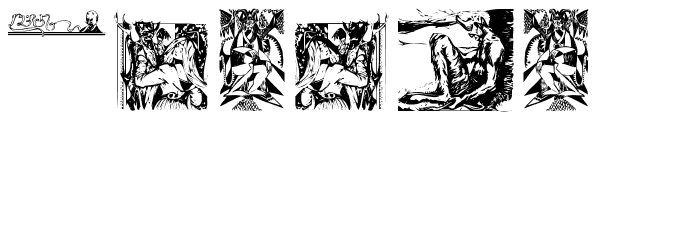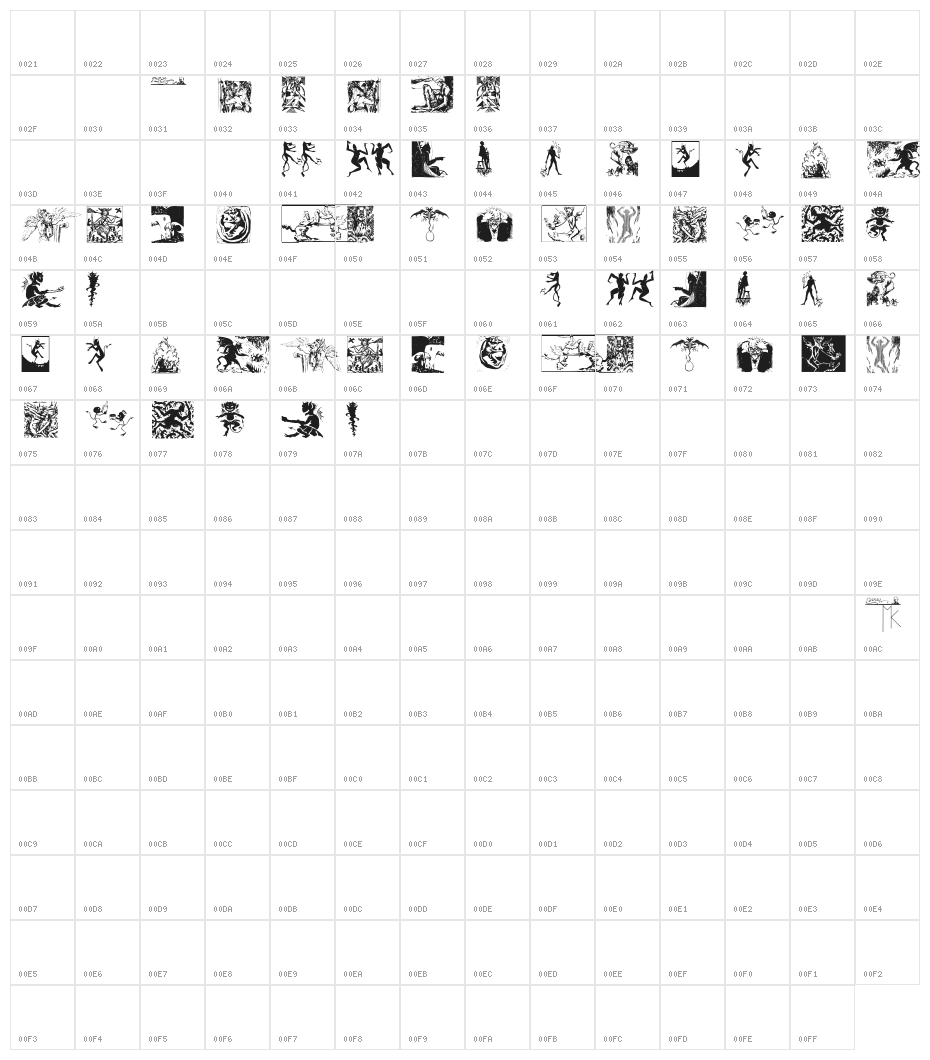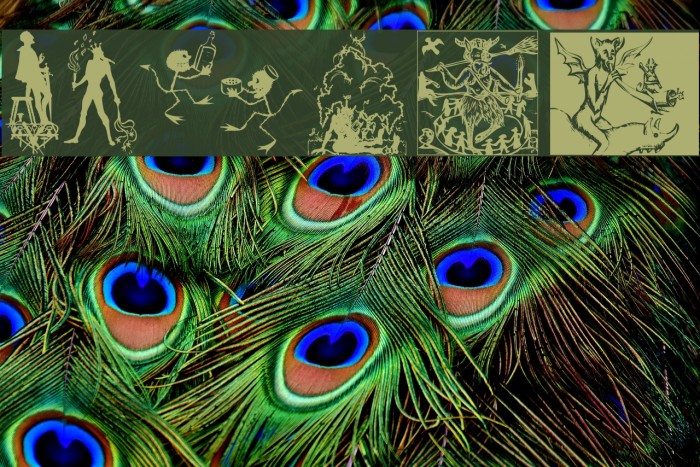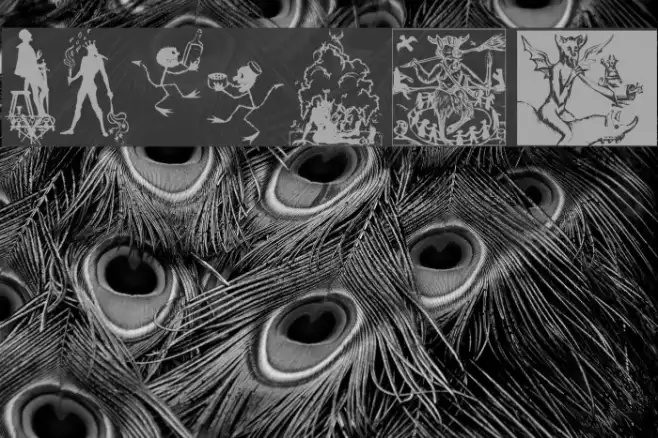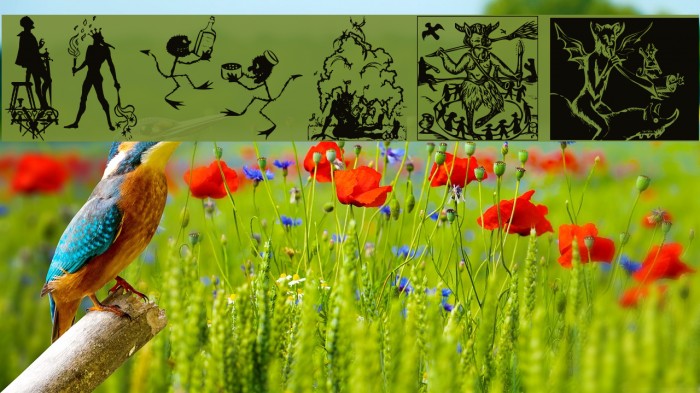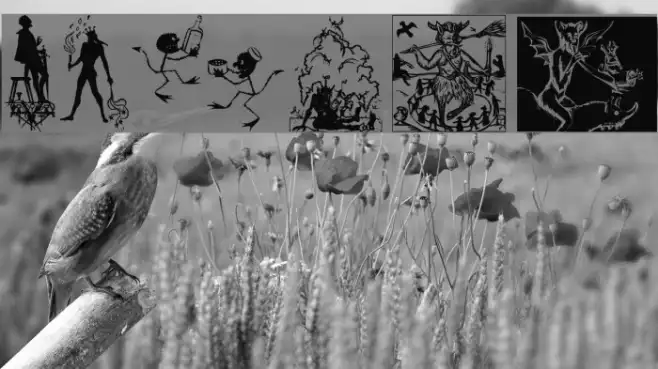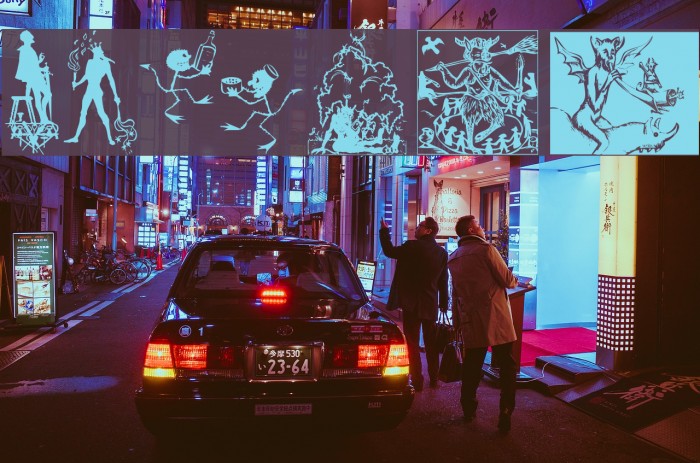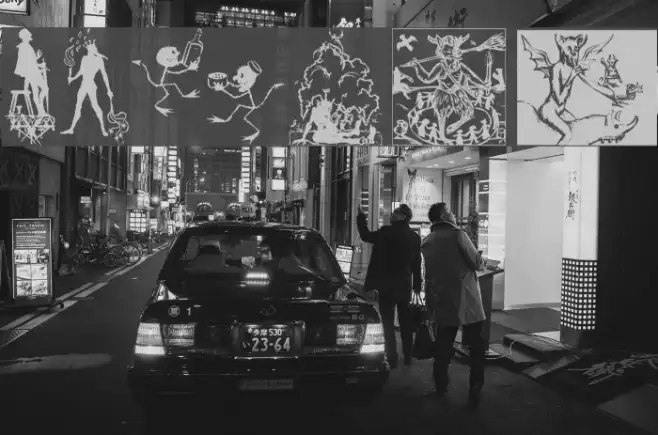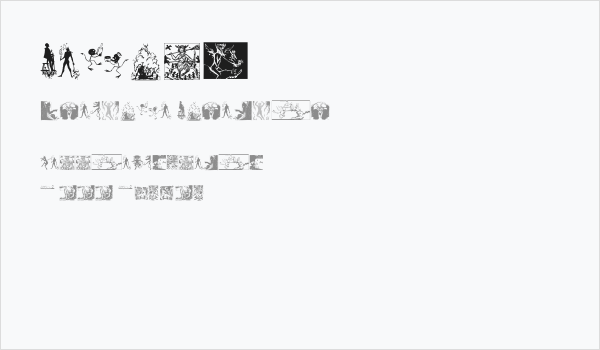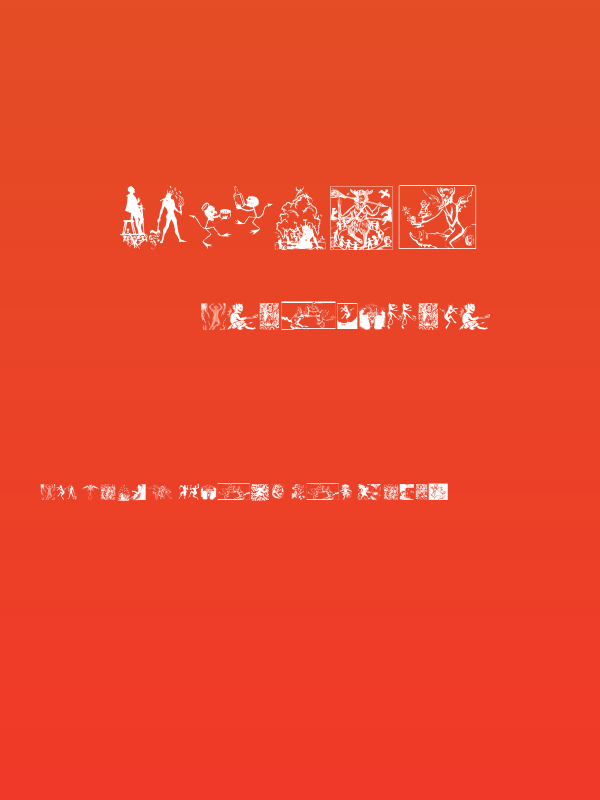
Devils Font
Devils Description
Highly decorative and illustrative font featuring intricate black-and-white drawings of devils, demons, and mythological scenes in place of standard alphanumeric characters. Each glyph is a unique, detailed illustration rather than a traditional letterform, with strong contrasts and dynamic compositions.
| Overall Style | Decorative, Mythological, Gothic |
| Use Case | Logos, Headlines, Posters, Themed graphics |
| Proposed Projects | Halloween posters, fantasy book covers, themed invitations, graphic novels, decorative titles. |